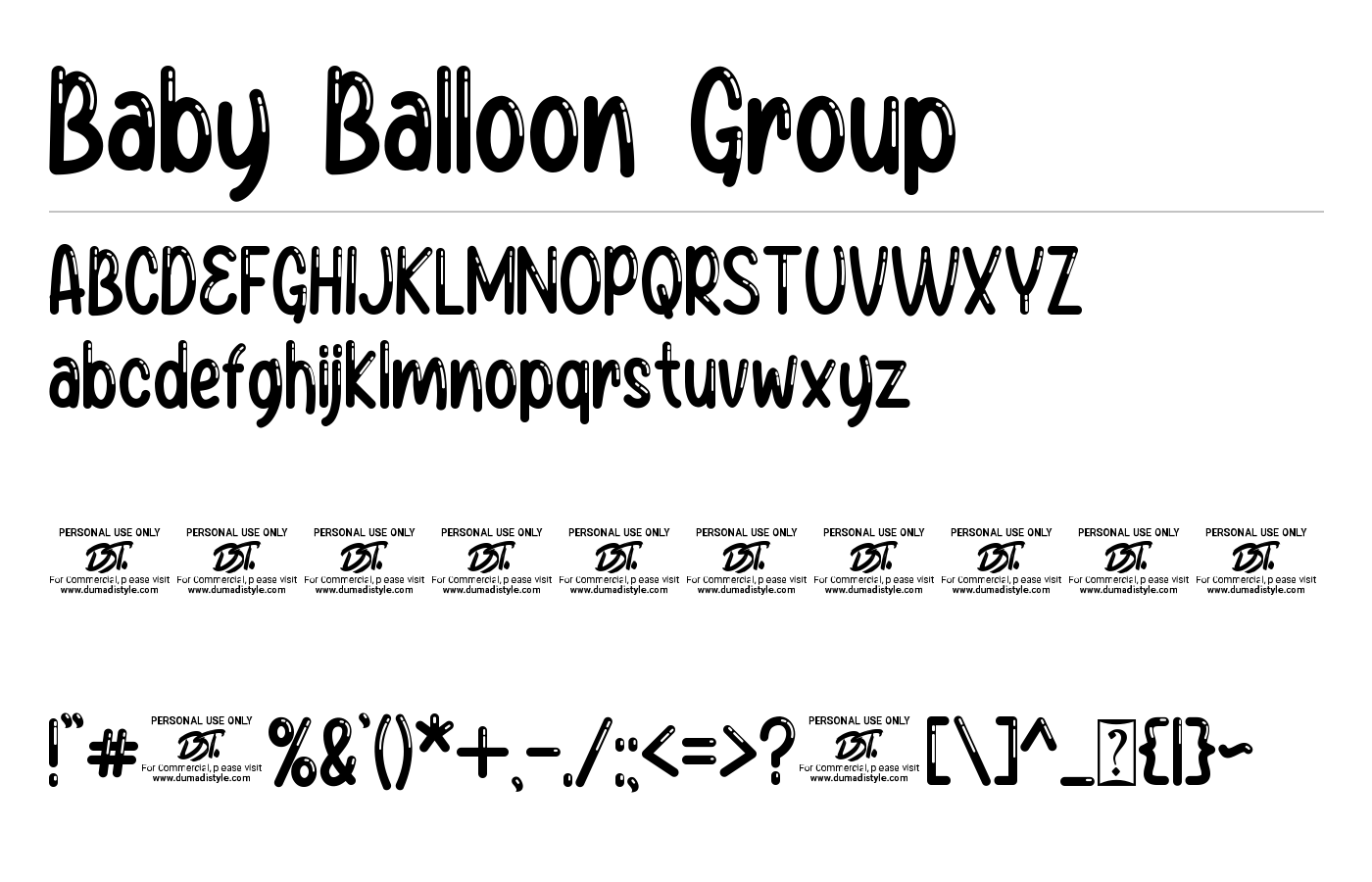
Baby Balloon Group is a playful, rounded sans serif font with a bold weight and casual, hand-drawn feel. Its tall x-height and slightly irregular shapes give it a fun, friendly personality perfect for children’s designs, informal branding, and creative projects that want to convey warmth and approachability. This font works well in headlines, logos, and packaging where a cheerful, whimsical vibe is desired.
Baby Balloon Group Font
About Baby Balloon Group Font
| Font family | Baby Balloon Group Font |
| Designer | Lettersiro 2018 |